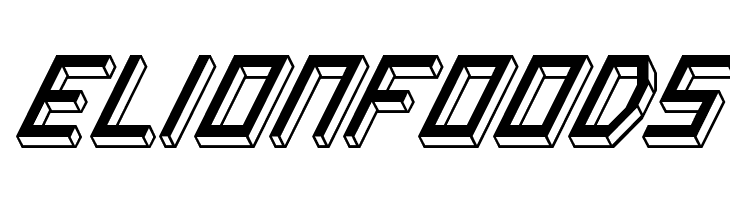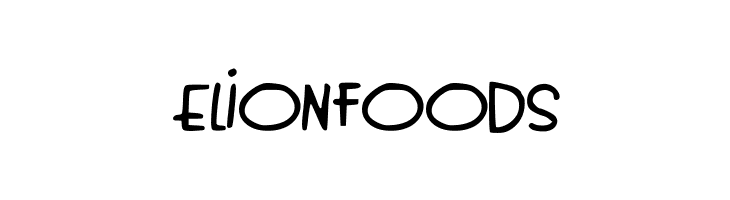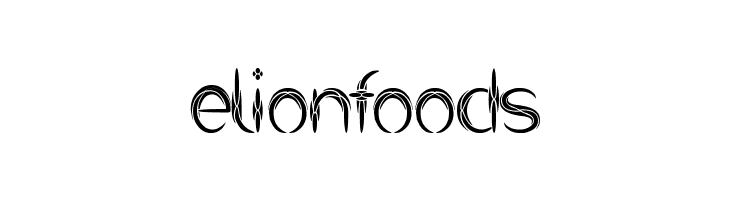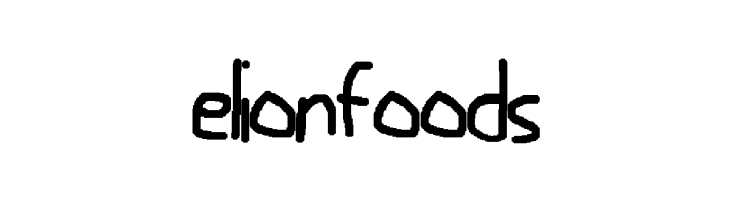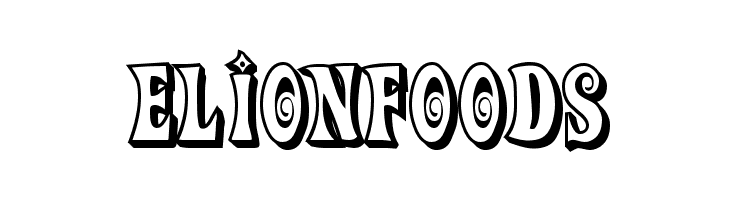
A bold, italic, 3D font with a modern and dynamic style.
A playful, hand-drawn font with bold, rounded characters and a whimsical style.
An artistic, edgy font with sharp, thorn-like detailing.
A playful, handwritten font with irregular strokes and a lively feel.
A bold, cursive font with a shadow effect for a three-dimensional look.
A distressed, grunge-style font with a textured, vintage appearance.
A bold, industrial font with uppercase letters in sawblade shapes.